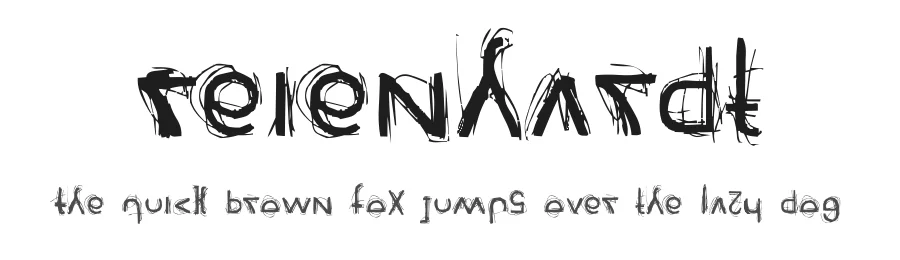
About Kingthings Scrybbledot Font
Kingthings Scrybbledot is a handwritten script font in Regular weight from Kingthings. Its distressed letterforms and deliberately rough edges create a casual, sketched aesthetic that works beautifully in any design project benefiting from an imperfect, hand-drawn quality. Supporting 112 glyphs across more than 107 Latin-based languages, this typeface handles international projects without technical limitations.
This font truly excels in invitation suites for casual celebrations, engagement announcements, and alternative-style weddings where imperfection conveys authentic charm rather than polished formality. Scrapbooking layouts, DIY craft labels, handmade gift tags, and social media graphics all gain immediate character from its sketchy, organic letterforms. Designers employ it for poster designs, vintage-style flyers, comic book lettering, greeting card text, or any creative project requiring authentic handwriting feel rather than mechanical, digital precision. The "trash" aesthetic makes it especially suited for designs embracing imperfection as an intentional, powerful design strength.
Pair Scrybbledot with a clean, structured serif or sans-serif headline typeface to balance its informal energy and create readable visual contrast. This pairing works exceptionally well across event invitations, merchandise tags, scrapbook pages, and mixed-media designs. Available as a free download from this page, the font's licence terms are displayed there for your reference.
Kingthings Scrybbledot supports 107 languages.
Kingthings Scrybbledot Font is a script font that shines as a display or heading face. Pair it with a clean sans-serif or serif font for body text β the contrast creates a clear hierarchy while the two styles stay balanced and easy to read.
Kingthings Scrybbledot Font
by Kingthings